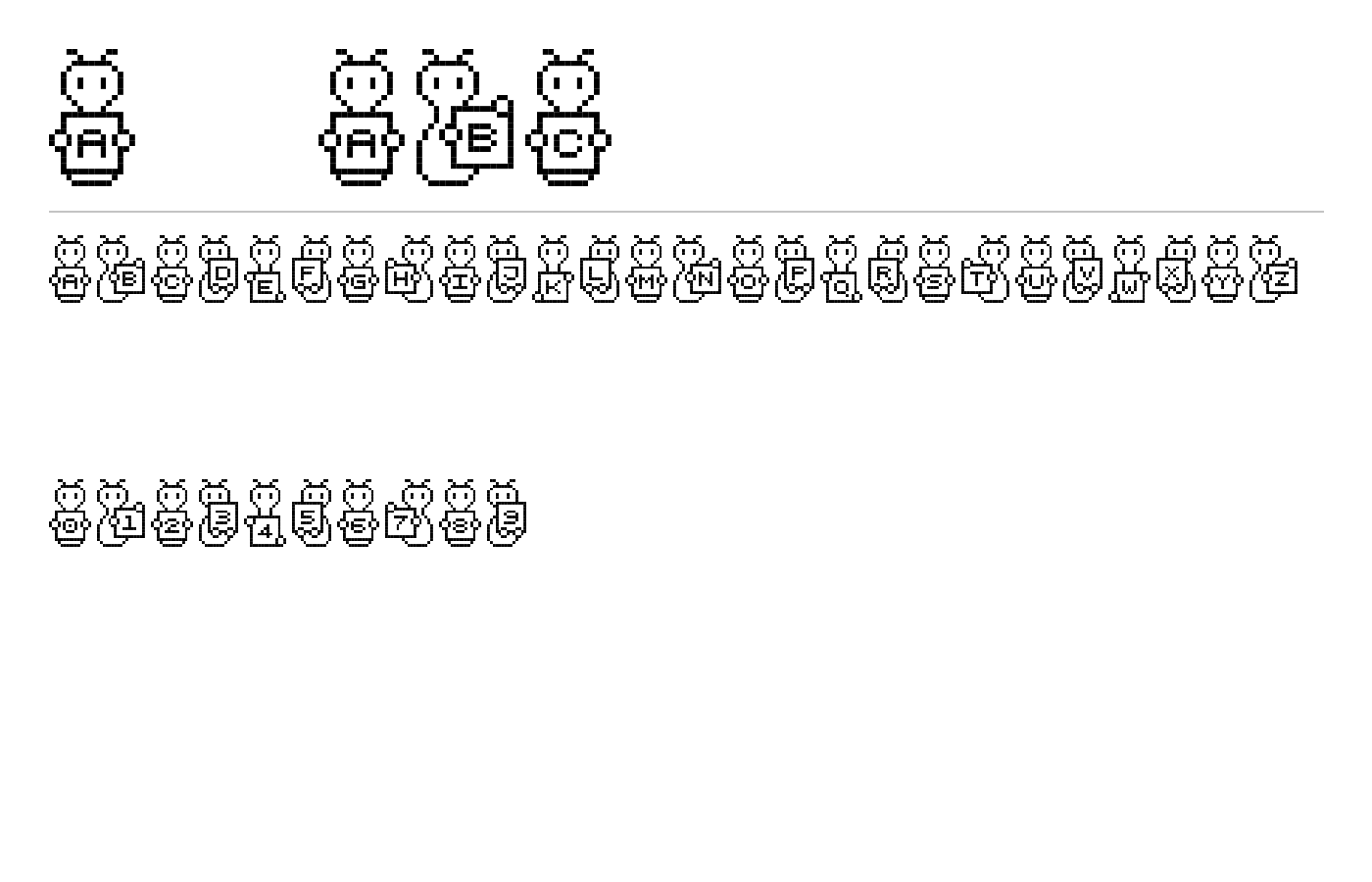
Alien ABC Font is a playful, pixel art style font that features blocky, simplified alien characters holding uppercase letters and numbers. Its unique, fun design with low resolution and geometric shapes makes it ideal for retro-themed projects, video games, and creative digital media seeking a quirky, futuristic vibe. This font works best for eye-catching headlines, logos, and informal designs where a touch of whimsy and nostalgia is desired.
Alien ABC Font
About Alien ABC Font